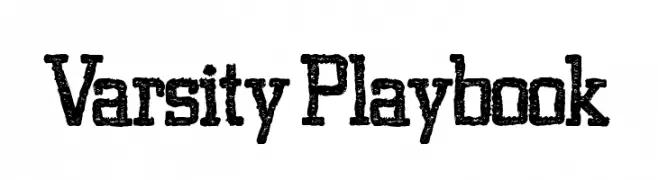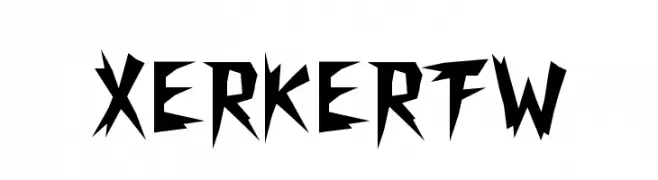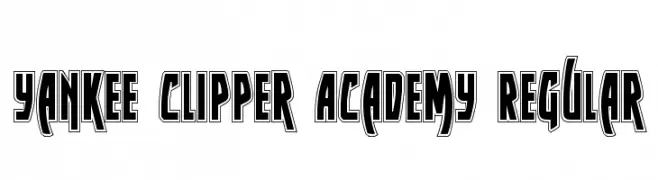
A modern, italicized font with sleek, angular characters and consistent stroke weight.
A bold, italic, and angular font with a futuristic and dynamic style.
A bold, angular font with a modern, slanted design.
A modern, expanded italic font with geometric and dynamic letterforms.
A bold, outlined font with a strong, athletic style.
A bold, jagged font with sharp, angular edges for a dynamic look.
A bold, textured font with a vintage sports and collegiate theme.
A bold, italicized font with a modern, dynamic style.